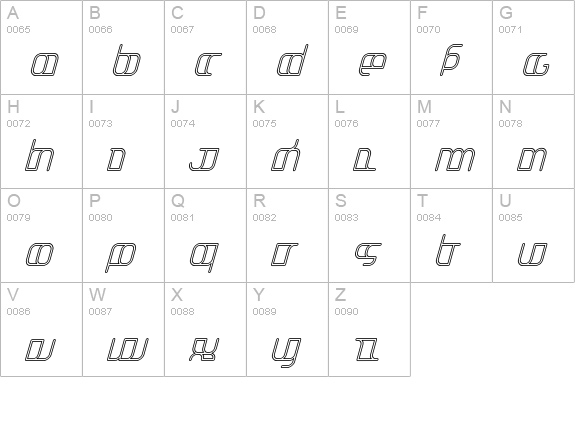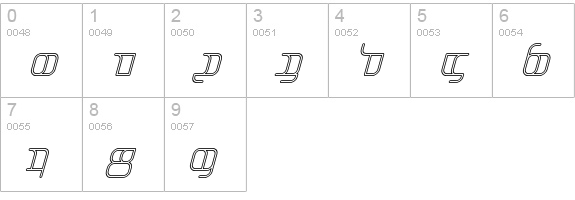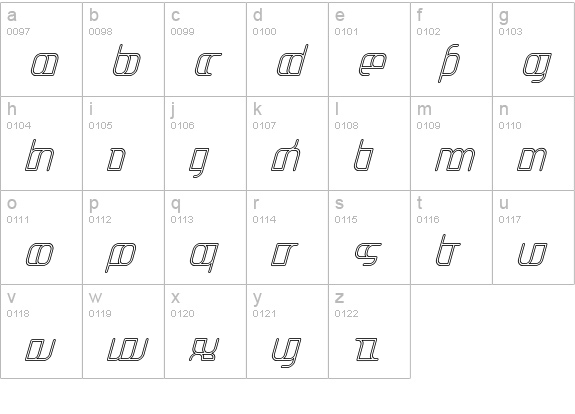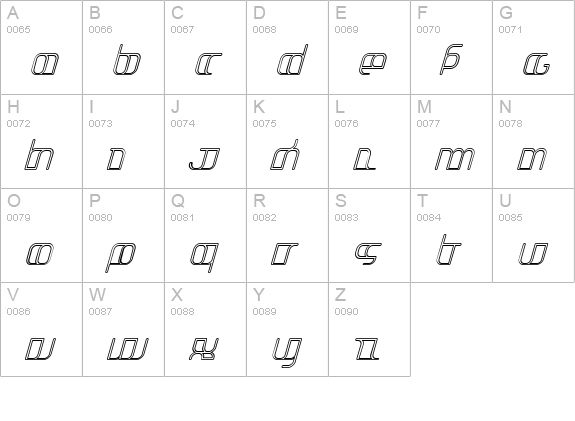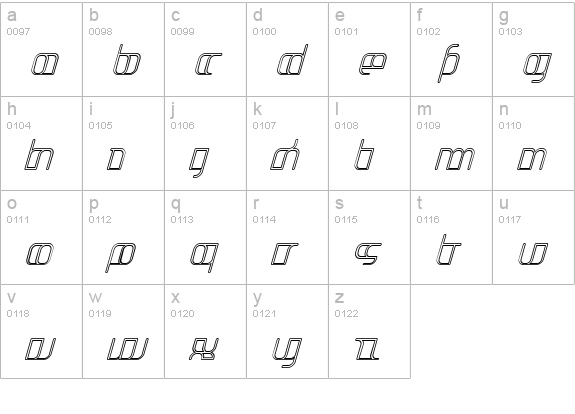
Introducing Jakone-TwinItalic font, a stunning and versatile typeface that is sure to captivate anyone who lays eyes on it. With its sleek and modern design, this font effortlessly combines elegance and edginess, making it perfect for a wide range of creative projects. The unique italic style of Jakone-TwinItalic adds a touch of sophistication to any text, giving it a distinctive and memorable look. Whether you're designing a logo, creating a stylish poster, or crafting a captivating website, this font will surely make a lasting impression. What sets Jakone-TwinItalic apart is not just its remarkable aesthetics, but also the fact that it is available for free. Yes, you heard it right - you can download this incredible font at no cost from FontsMarket.com. This means that you can unleash your creativity without having to worry about breaking the bank. With its extensive character set, Jakone-TwinItalic supports multiple languages, ensuring that your message can be communicated effectively to a global audience. Its clean and crisp letterforms guarantee legibility, even at smaller sizes, making it suitable for both print and digital mediums. Whether you're a professional designer or a passionate hobbyist, Jakone-TwinItalic is a must-have addition to your font collection. Its versatility, elegance, and availability for free make it an invaluable resource for all your creative endeavors. So why wait? Head over to FontsMarket.com and download Jakone-TwinItalic now to elevate your design projects to new heights.